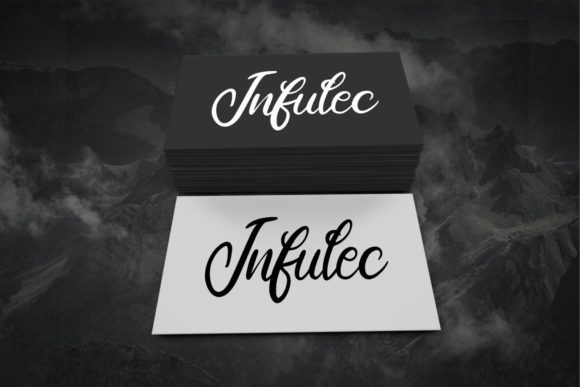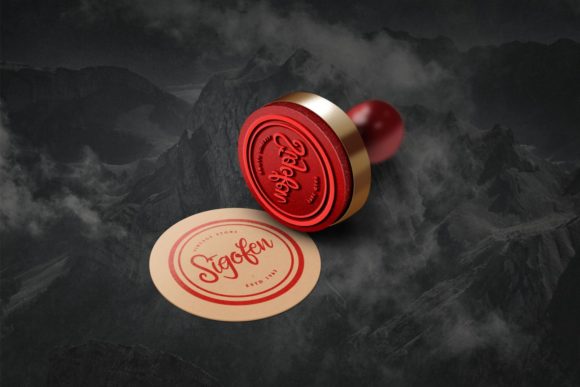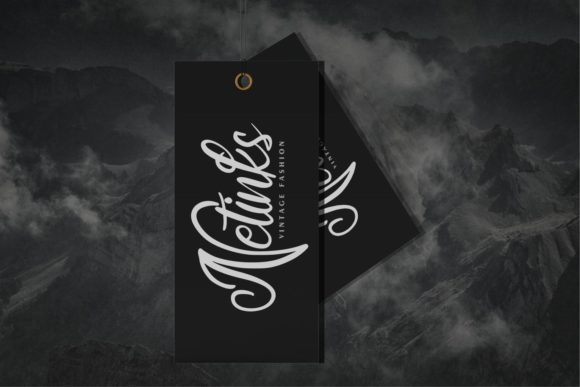
Introduction to Milesa Font
Milesa is an incredibly distinct, delicate and timeless handwritten font.
It looks beautiful on cards, quotes, greeting cards, logos, business cards and every other design which needs a personalized touch .
Milesa Font offers exceptional quality and versatility, making it a valuable addition to your design toolkit. Whether you’re creating for personal projects or commercial use, Milesa Font delivers professional results.